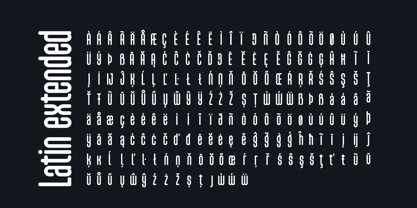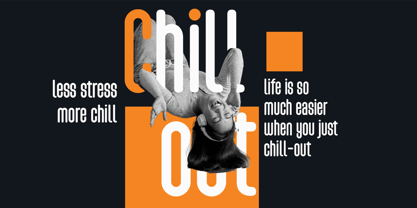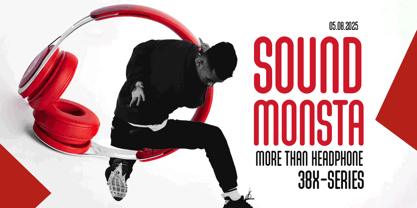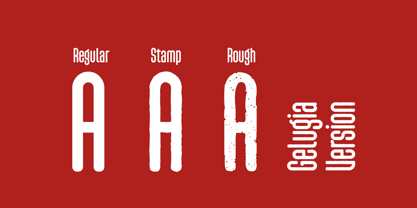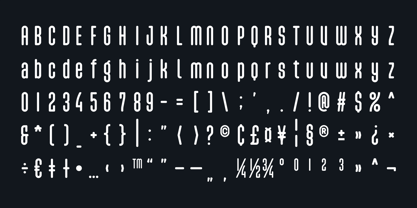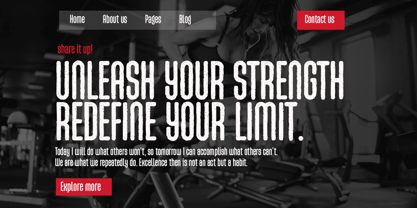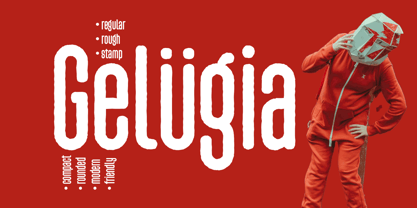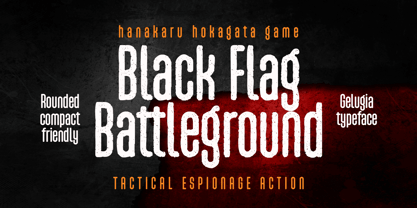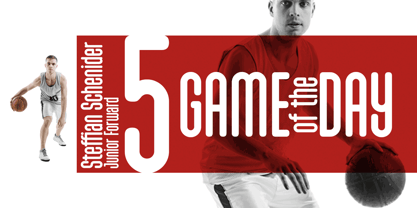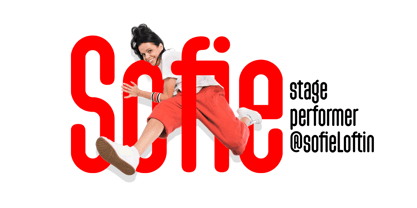
Gelugia
by MMMA Creative
The Gelugia Font Family was designed by Muhammad Ridha Agusni, Muhammad Mevlana Maliq Azizi and published by MMMA Creative. Gelugia contains 3 styles and family package options.
Gelugia is a compact, rounded display sans serif that combines warmth with modernity in every letterform. Designed with clarity and confidence, it features a consistent rhythm and a tight, upright structure that makes it both space-efficient and visually striking. Its approachable yet bold shapes adapt seamlessly across applications, from energetic sports graphics to lifestyle branding, youth campaigns, and dynamic digital content. Available in three versions: Regular, Stamp, and Rough, Gelugia supports multilingual characters and performs flawlessly in both print and screen environments. Rounded to connect, compact to fit, Gelugia is typography built to move with modern life.
About MMMA Creative
MMMA Creative is an independent type foundry based in Aceh, Indonesia, founded by Muhammad Mevlana Maliq Azizi. With a love for expressive letterforms, MMMA Creative focuses on creating display, graffiti, and handwriting fonts that carry a personal and creative touch.Inspired by urban culture and the freedom of visual expression, each typeface is crafted with care—whether it's bold graffiti styles or natural handwriting. MMMA Creative is a place where letters are shaped by passion, built with a DIY spirit, and made to connect through character.